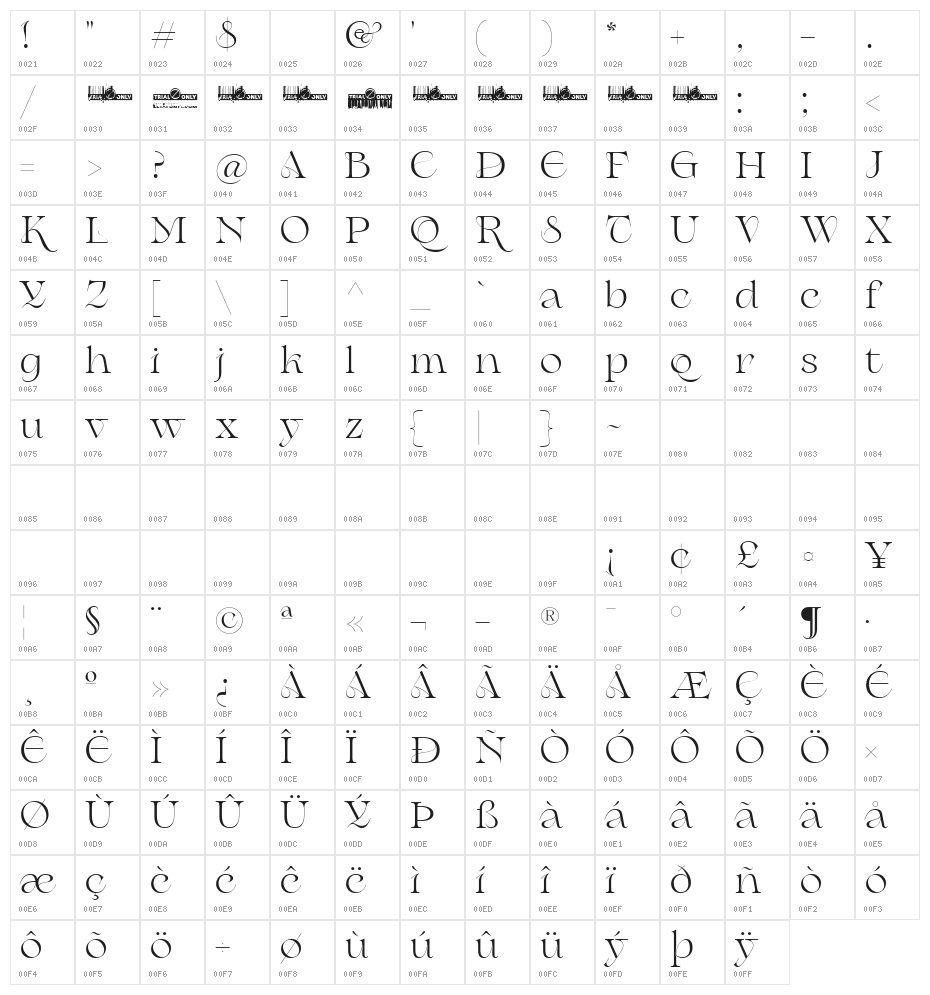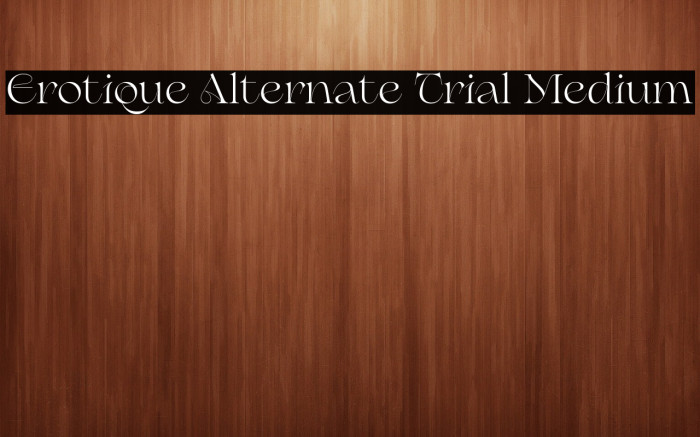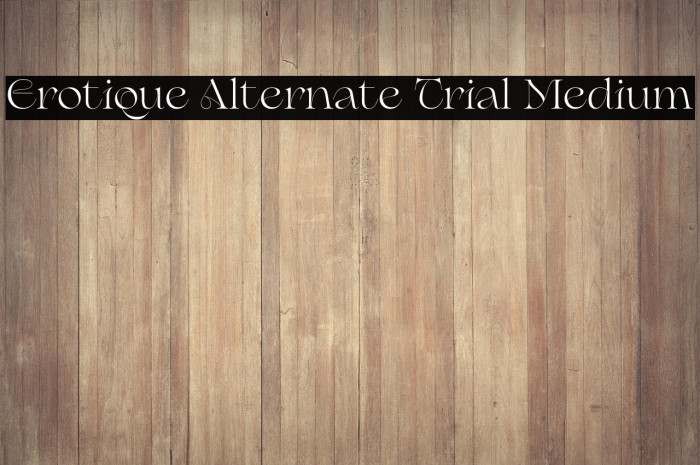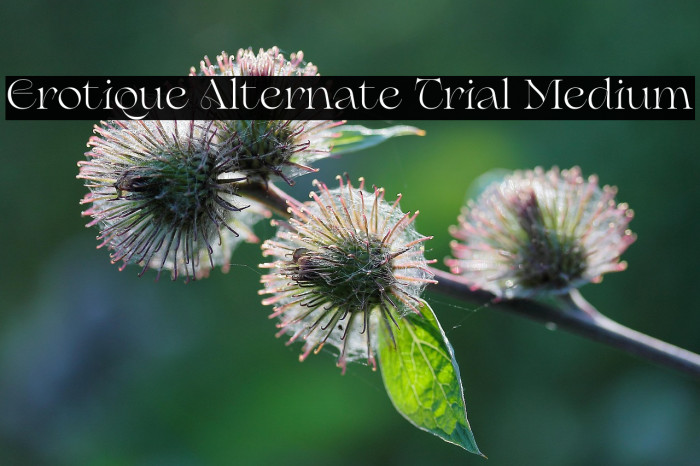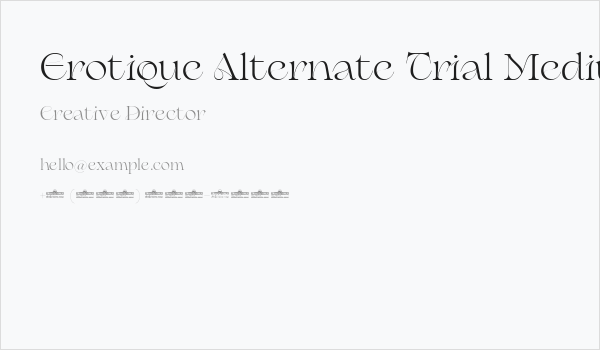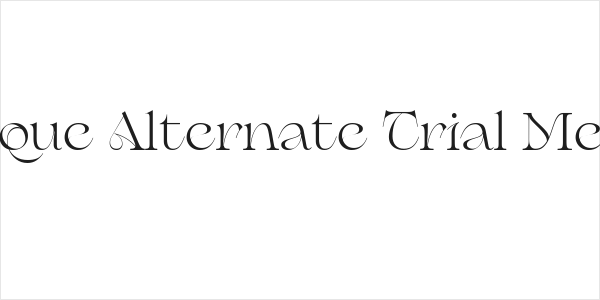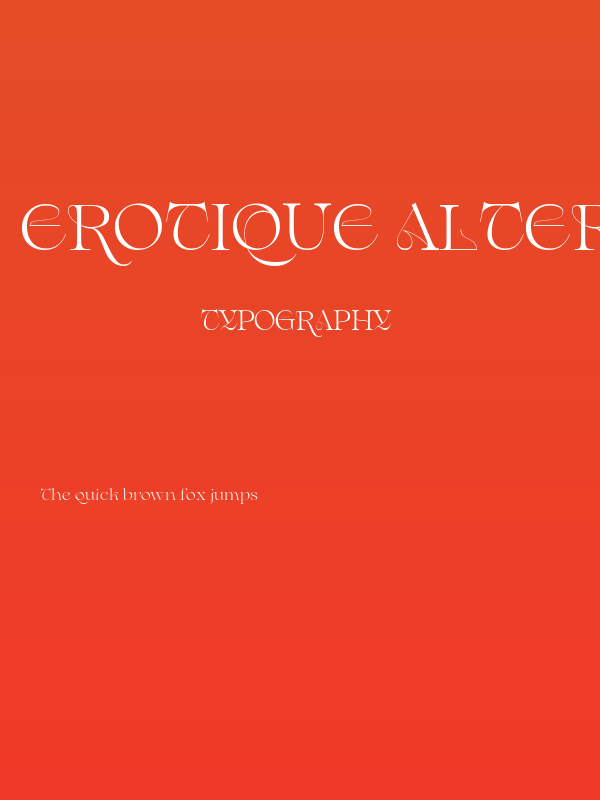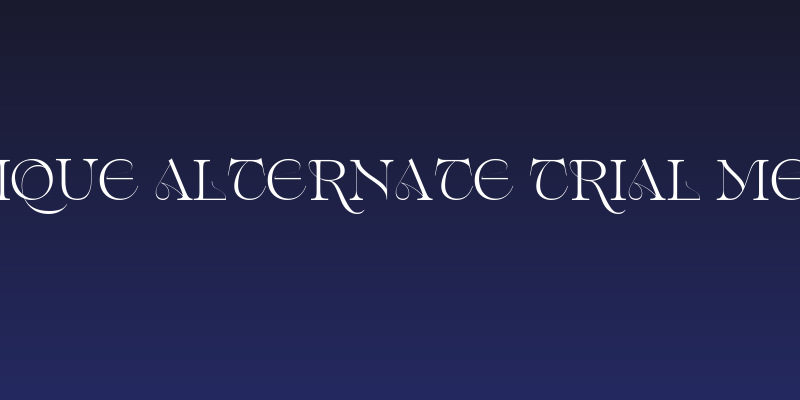
Erotique Alternate Trial Medium Font
Erotique Alternate Trial Medium Description
This font features an elegant and sophisticated design with a unique blend of modern and classic elements. The uppercase letters exhibit a graceful flair with subtle curves and decorative swashes, adding a touch of luxury and refinement. The lowercase letters maintain a harmonious balance, offering a smooth and flowing appearance. The numerals and special characters are crafted with the same attention to detail, ensuring consistency throughout. This font's distinctive style is perfect for projects that require a touch of elegance and sophistication.
| Proposed Projects | Ideal for luxury branding, wedding invitations, high-end product packaging, and editorial design. |